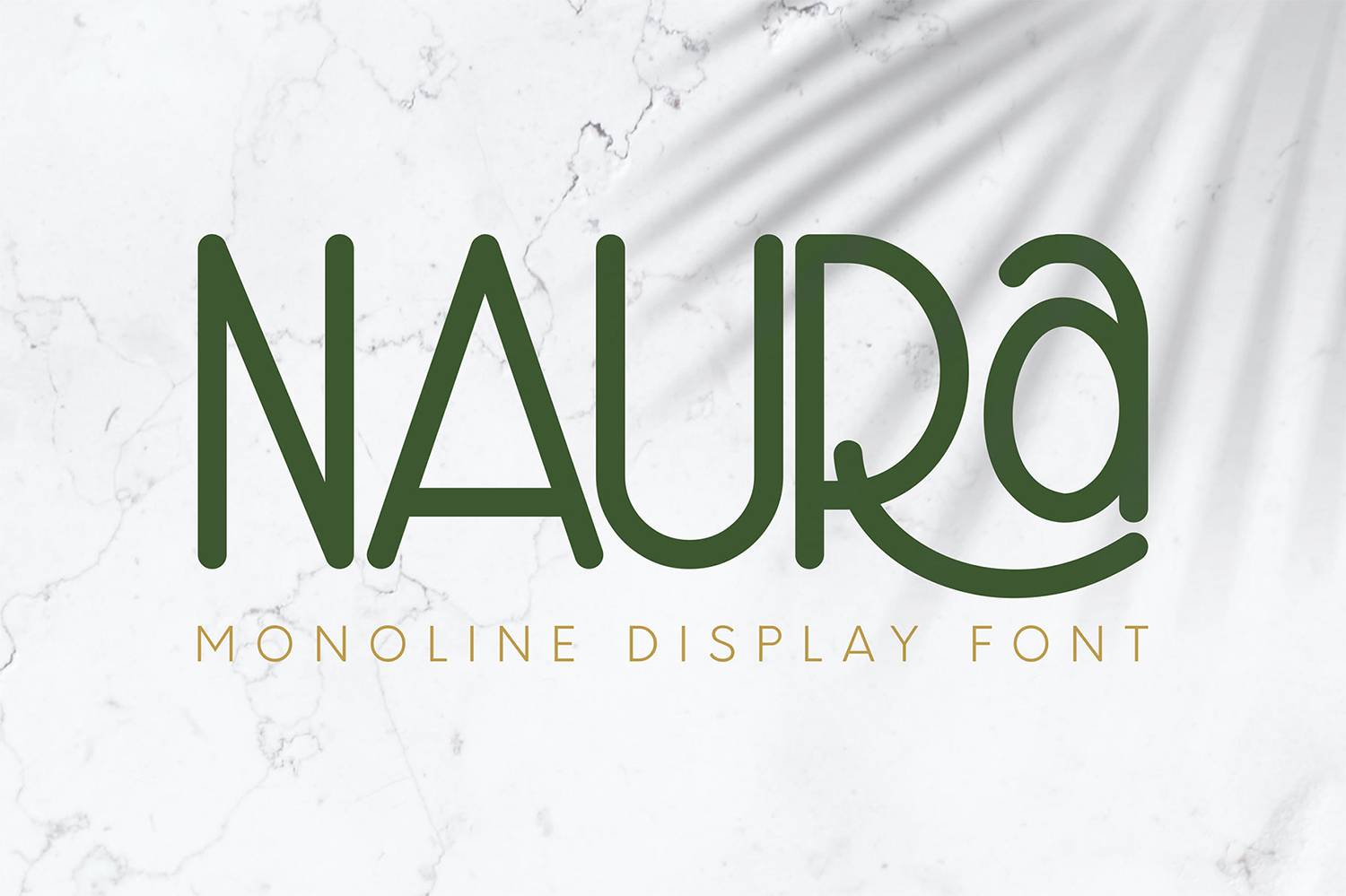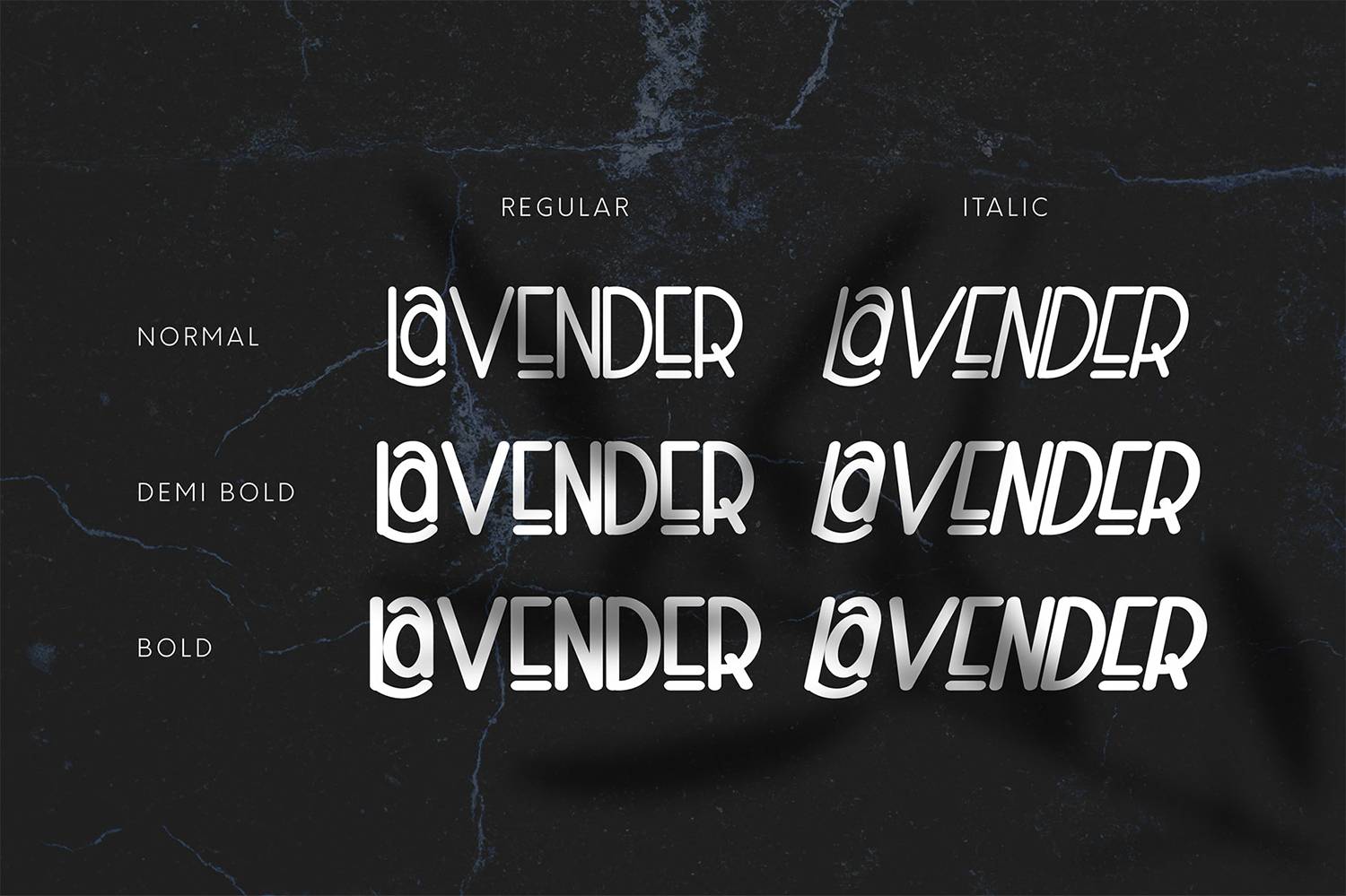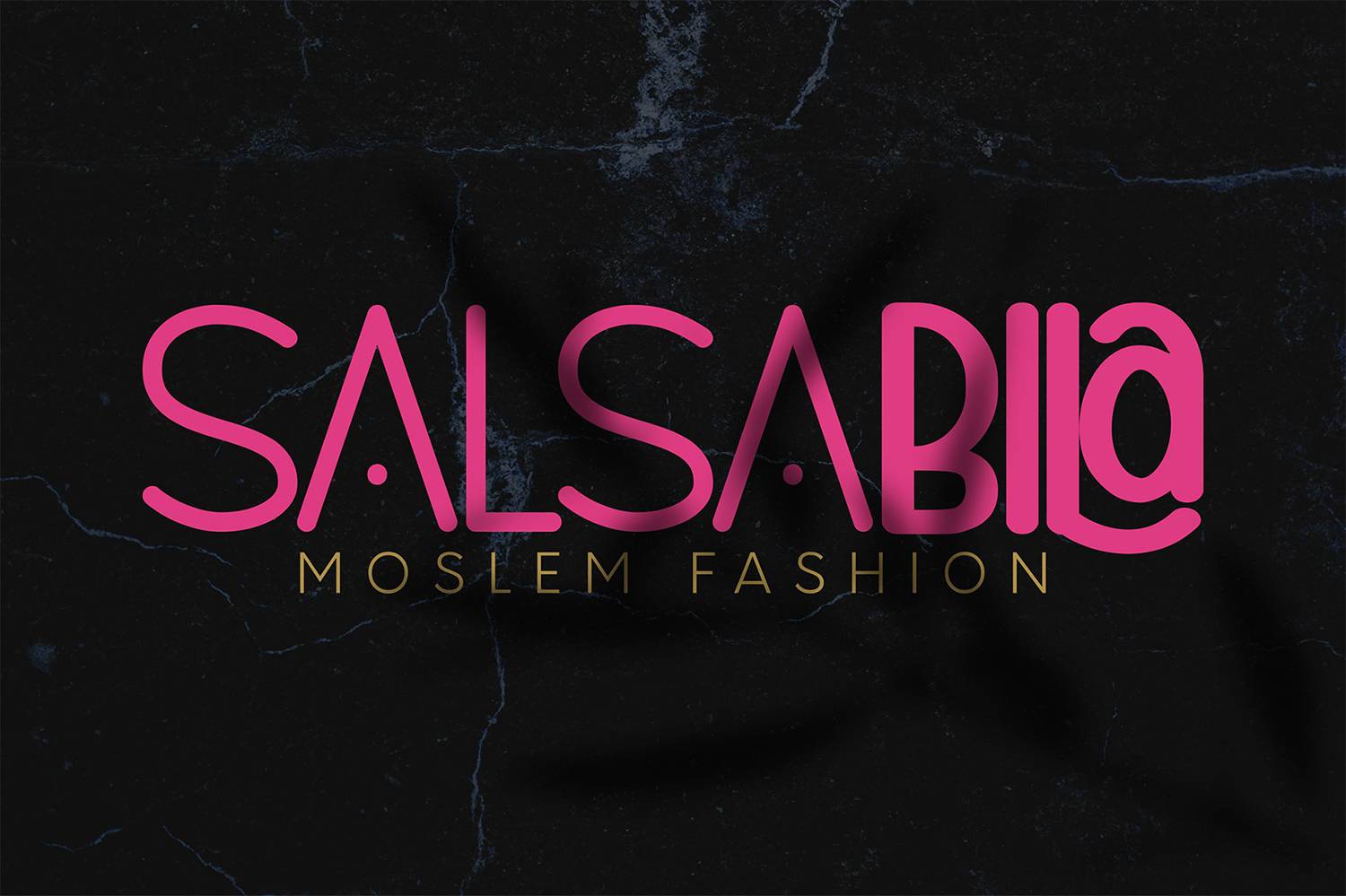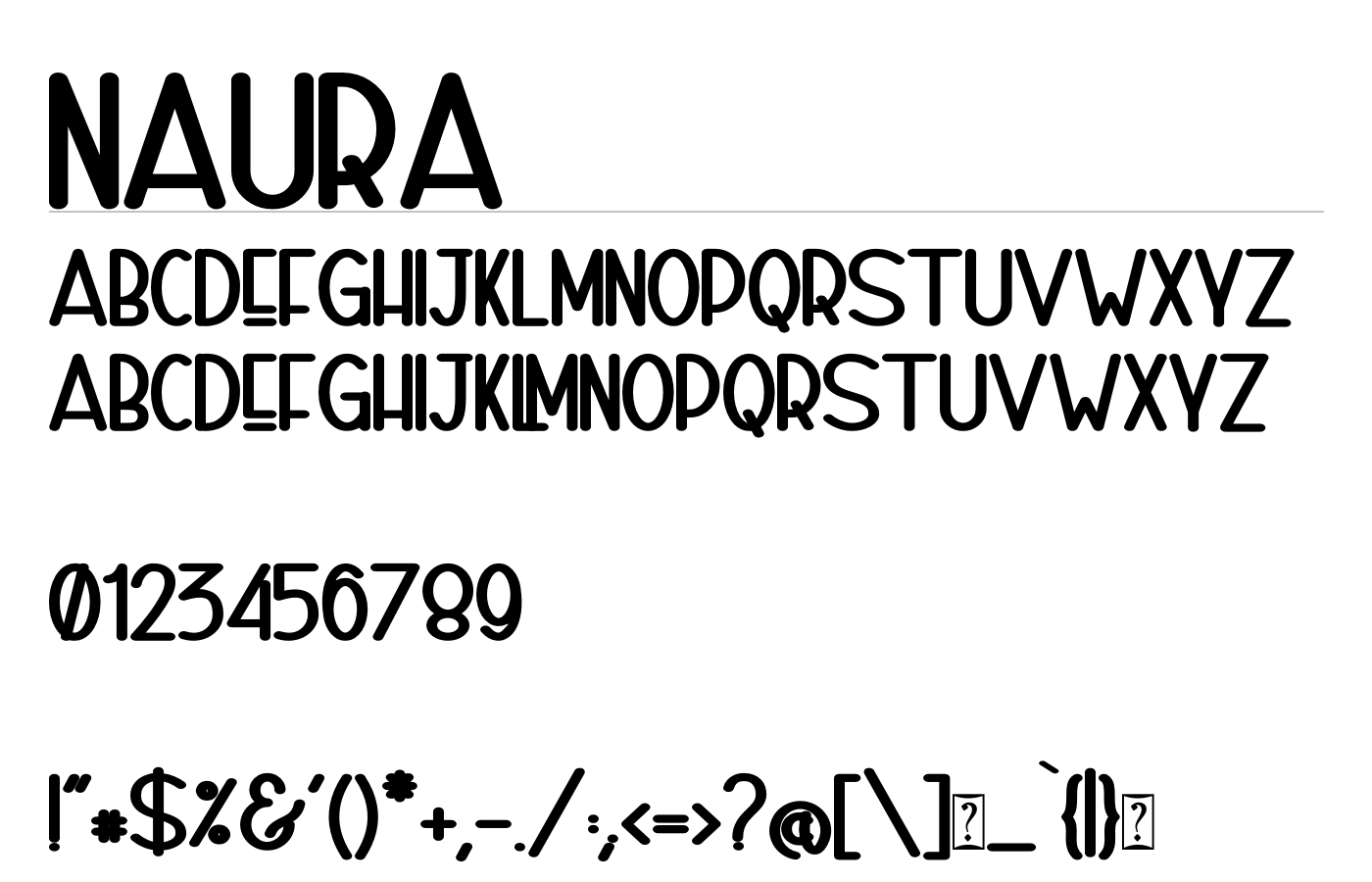
Naura is a modern sans serif font with a clean, slightly condensed design and rounded, geometric strokes that give it a friendly yet professional feel. Its uniform weight and tall letterforms enhance readability while adding a contemporary, approachable vibe, making it ideal for branding, headlines, and editorial projects that seek a fresh and inviting look. This font works well in contexts where clarity and personality are both important, such as websites, logos, and packaging.
Naura Font